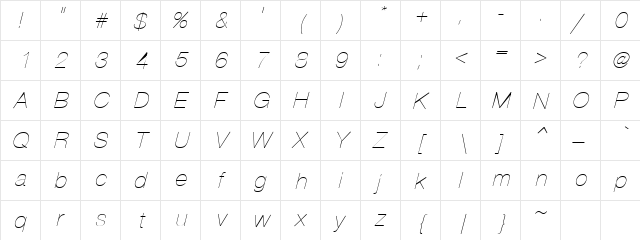
Partridge-Thin Oblique
Design Context for Partridge-Thin Typeface
Partridge-Thin takes a measured approach to typography — its balanced proportions and neutral character make it a reliable workhorse for both digital and print work. The dynamic lean of this cut emphasises speed and emphasis in any layout. The delicate stroke weight brings airiness and refinement to layouts.
Pro Tip: Use Partridge-Thin for emphasis, pull quotes, and subheadings where its slanted energy can add rhythm to the layout.